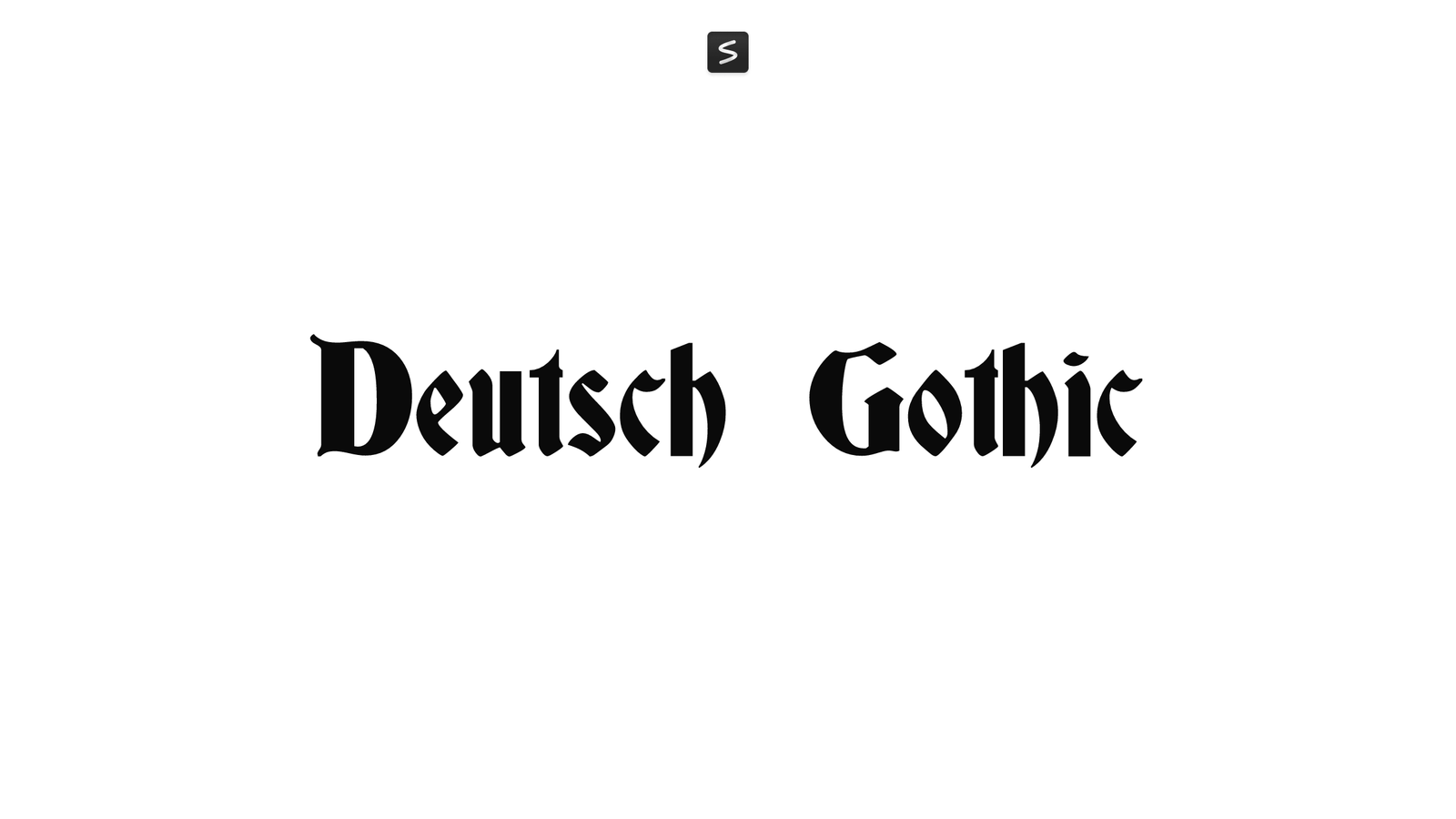
Deutsch Gothic is a gothic font designed by James Fordyce that channels the angular, ornate letterforms of medieval manuscript tradition. Its tall, pointed characters and decorative serifs evoke the look of blackletter and Old English calligraphy, with a distinctly historical aesthetic.
The font features sharp terminals, tightly spaced letterforms, and a formal weight that makes text feel ceremonial and elaborate. While intricate in appearance, it remains readable enough for headlines and display use. Its period-appropriate styling works well for designs that need an authentic medieval or medieval atmosphere.
Deutsch Gothic suits book covers, fantasy posters, historical documents, tabletop game materials, and branding projects that draw from gothic or period aesthetics. It’s a straightforward choice for anyone seeking a genuine blackletter feel without unnecessary embellishment.